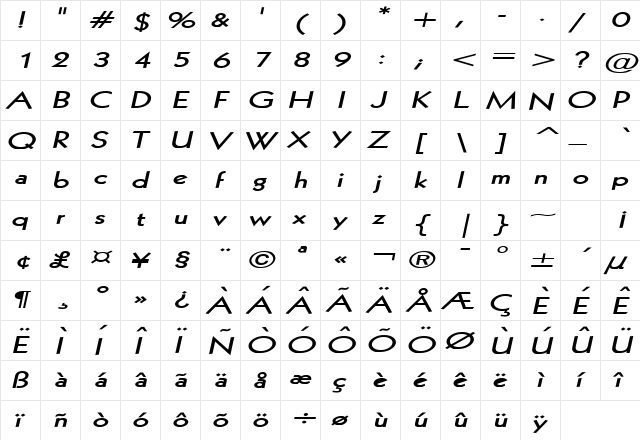
Geo 112 Extended Bold Italic
Design Context for Geo 112 Extended Typeface
Geo 112 Extended offers clean, dependable letterforms without strong stylistic allegiance, making it a practical choice for designers who need flexibility. The dynamic lean of this cut emphasises speed and emphasis in any layout. The heavy weight commands attention and anchors typographic hierarchies.
Pro Tip: Use Geo 112 Extended for emphasis, pull quotes, and subheadings where its slanted energy can add rhythm to the layout.